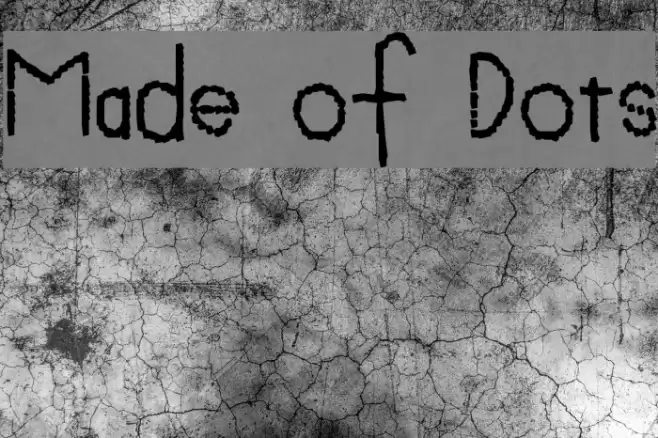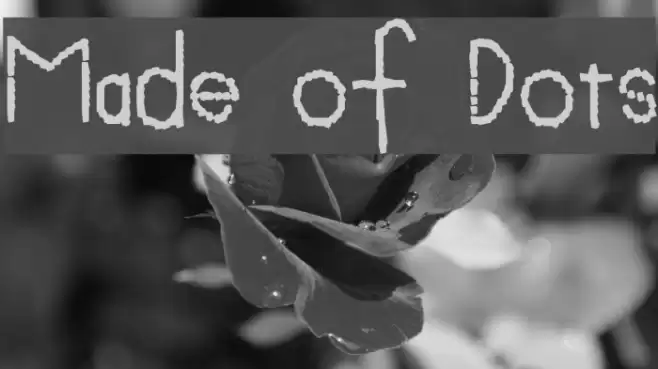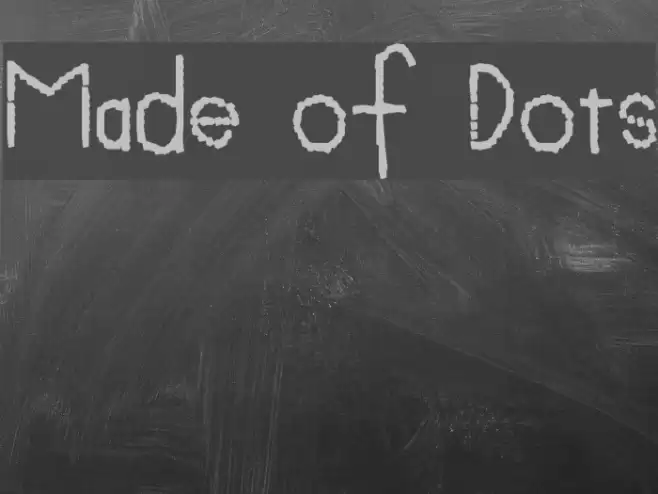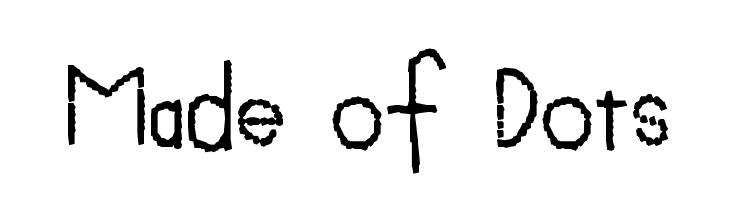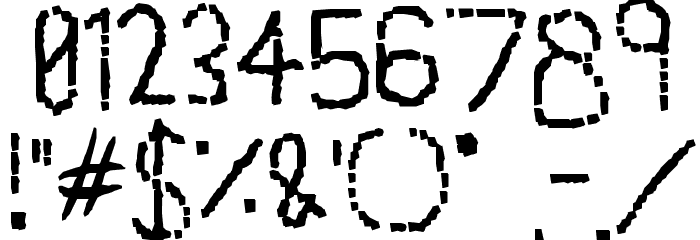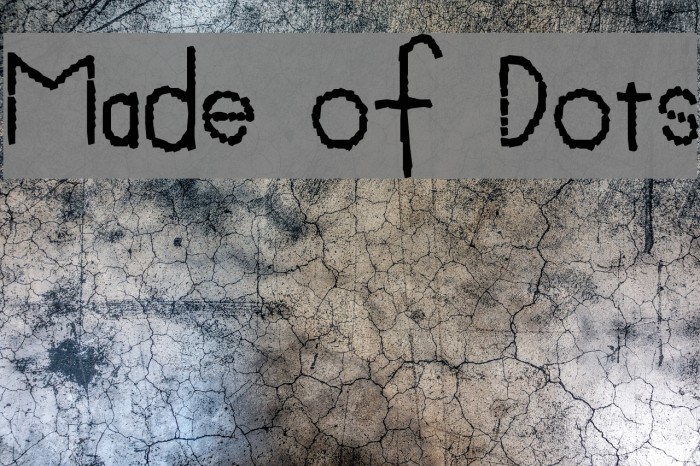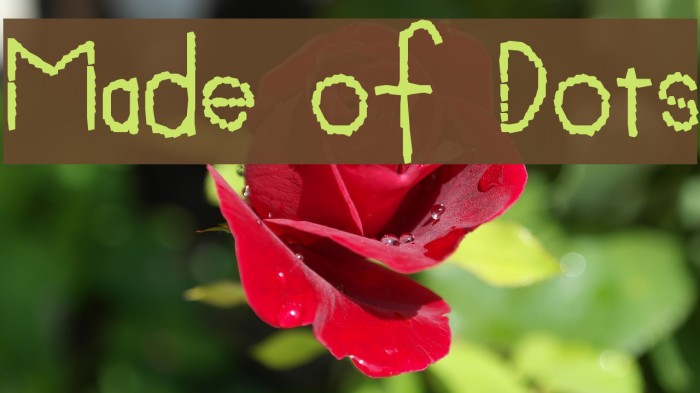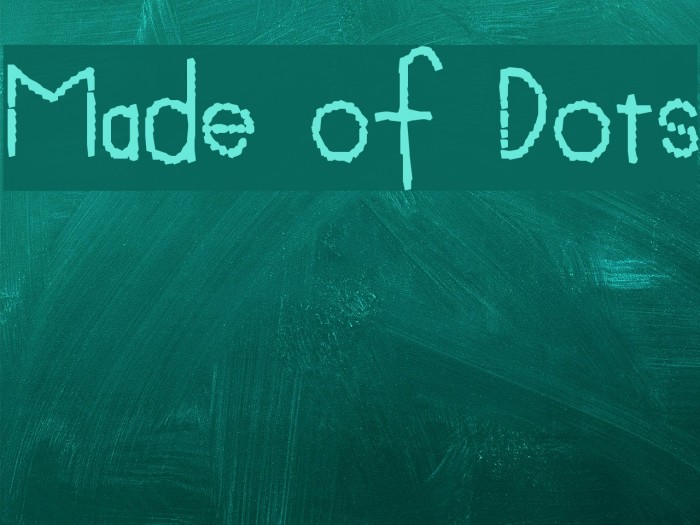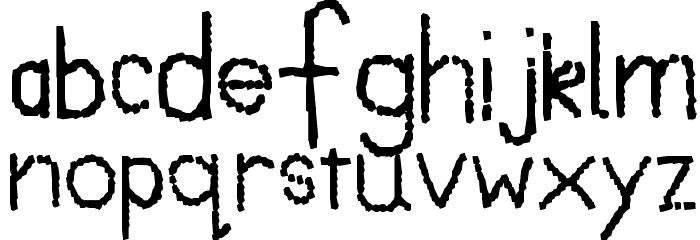
Made of Dots Font
Made of Dots Description
This font is characterized by its unique dotted structure, where each character is formed by a series of dots connected in a linear fashion. The uppercase and lowercase letters maintain a consistent style, with rounded edges and a playful, informal appearance. The numbers and special characters follow the same dotted pattern, ensuring uniformity across the entire set. This font exudes a handcrafted, artistic vibe, making it stand out in any design project. The spacing between characters is relatively tight, which adds to its compact and cohesive look. Despite its playful nature, the font remains legible and clear, making it suitable for various creative applications.
A playful, dotted font with a handcrafted, artistic style from Uncategorized fonts.
- Proposed Projects: Ideal for children's books, creative posters, playful branding, and artistic projects.
- Character Spacing: Tight
- Overall Style: Playful, Artistic
- Use Case: Headlines, Logos, Creative projects